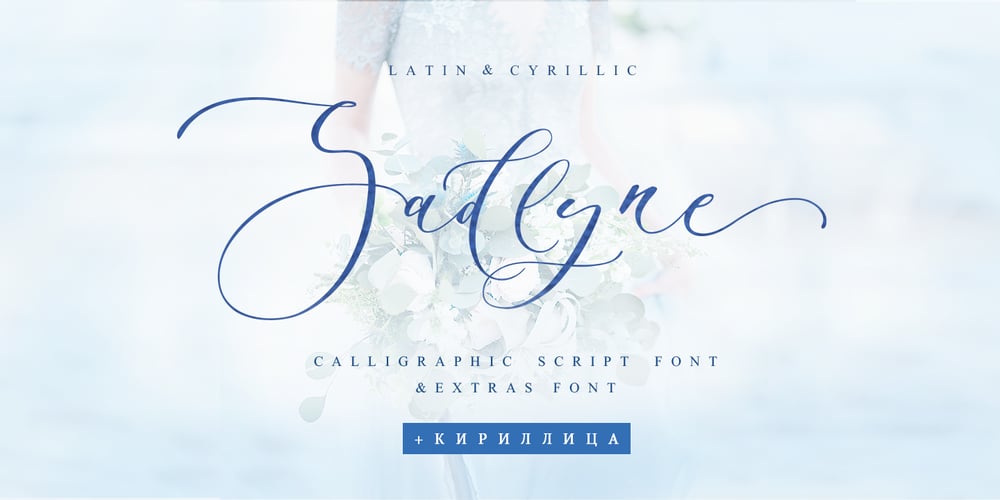
Sadlyne Cyrillic Font Family was designed by Iryna Dviliuk and published by Ira Dvilyuk. Sadlyne Cyrillic contains 2 styles and family package options. Amazing lightness of modern calligraphic writing is reproduced in handwritten script font Sadlyne. This font consists of a pair of handwritten script font and additional font with hand-drawn flourishes and decorative elements. An outstanding feature of them is the fanciful swirls of the initial and final tails of the letters, which will add a playful elegance to your typography designs. The handwritten font itself includes all abundance of modern calligraphic font capabilities. The font pair Sadlyne is the best option for your wedding stationery and wedding monograms. Also it will be perfect for branding, logos, social media, packaging, and other projects.Sadlyne script contains a full set of uppercase letters and 5 full sets of lowercase letters, (standard, alternative, and initial, final form and flourish form). To make a needed form just type a letter with a number (such as a1, b1, c1…) and 27 ligatures – which can be used to create a handwritten calligraphy look.Sadlyne script font contains the Cyrillic glyphs too.The Cyrillic part of the font contains the uppercase letters and 3 full sets of lowercase letters, (standard, initial and final form). To make a needed form just type a letter with a number such as a1, б1, в1… After that select the word and apply the Open Type Features in programmes such as Adobe Illustrator, Photoshop, and others) Also Cyrillic part of the font contains 12 Cyrillic ligatures.To use all features of the font you need to have an access to all Opentype Features in software you work with.Sadlyne Symbols is a font with over 36 hand-drawn elements, illustrations and swashes that can help you to make your design unique and matchless. Combine and merge swashes and illustrations to create your own designs and make borders, frames, dividers, logos, and more (just use A-Z and a-z keys in the included Sadlyne Symbols font). A different symbol is assigned to each uppercase or lowercase standard character, so you do not need graphics software, just type the letter you need.Multilingual Support for 31 languages: Latin glyphs for Afrikaans, Albanian, Basque, Bosnian, Catalan, Danish, Dutch, English, Estonian, Faroese, Filipino, Finnish, French, Galician, Indonesian, Irish, Italian, Malay, Norwegian Bokmål, Portuguese, Slovenian, Spanish, Swahili, Swedish, Turkish, Welsh, Zulu.And Cyrillic glyphs support for Russian, Belorussian, Bulgarian, and Ukrainian languages.